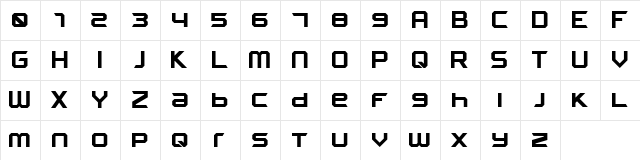
FROSTBITE Wide Bold
Design Context for FROSTBITE Wide Typeface
FROSTBITE Wide offers clean, dependable letterforms without strong stylistic allegiance, making it a practical choice for designers who need flexibility. The heavy weight commands attention and anchors typographic hierarchies.